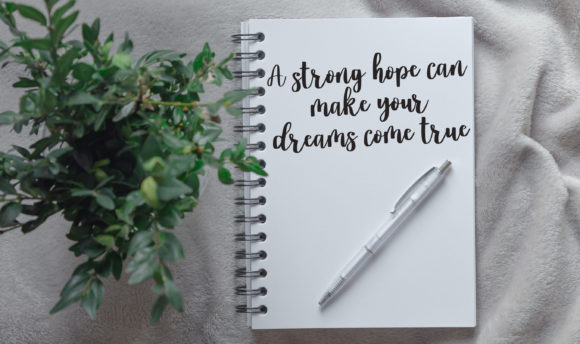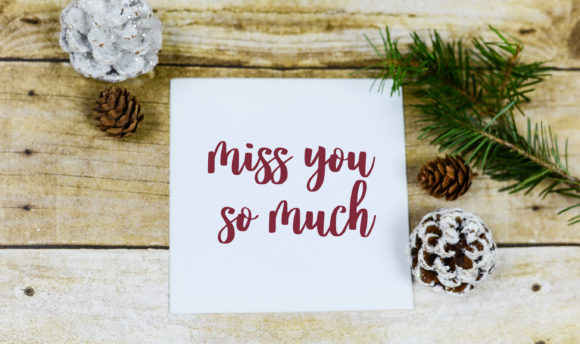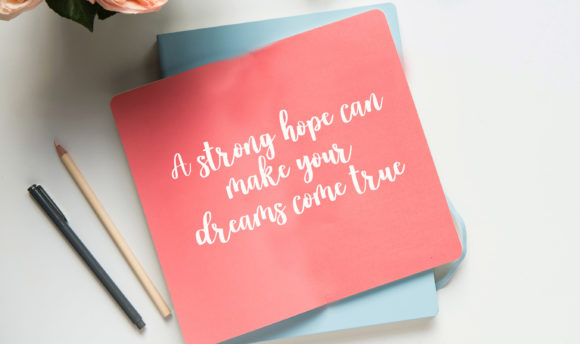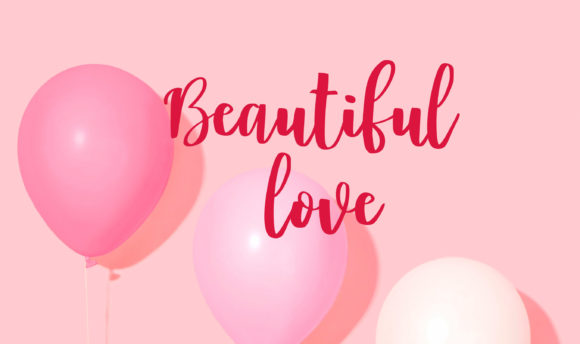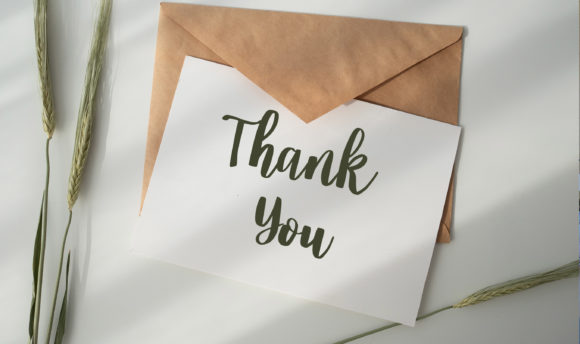
Introduction to Hellocute Font
Hellocute is a magical script font carefully created with a touch of elegance.
Key Features of Hellocute Font
Why Choose Hellocute Font?